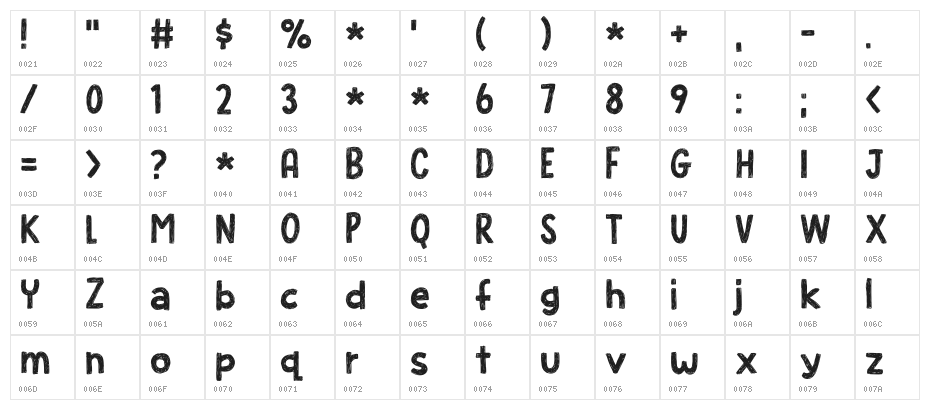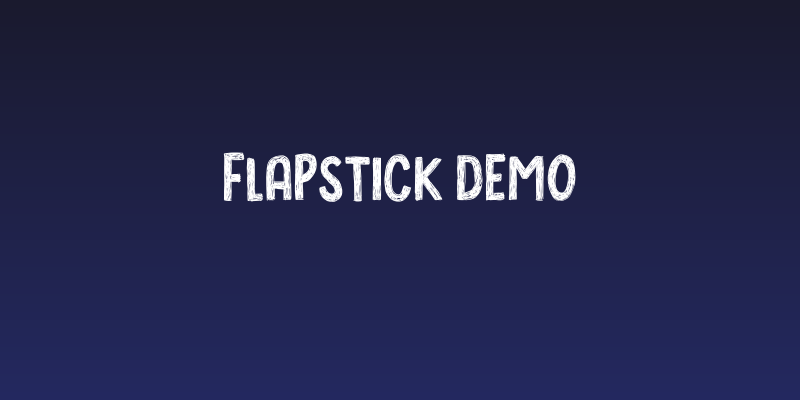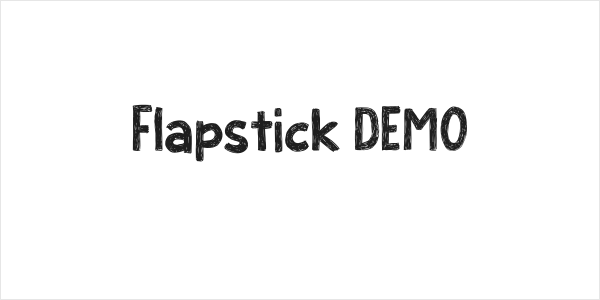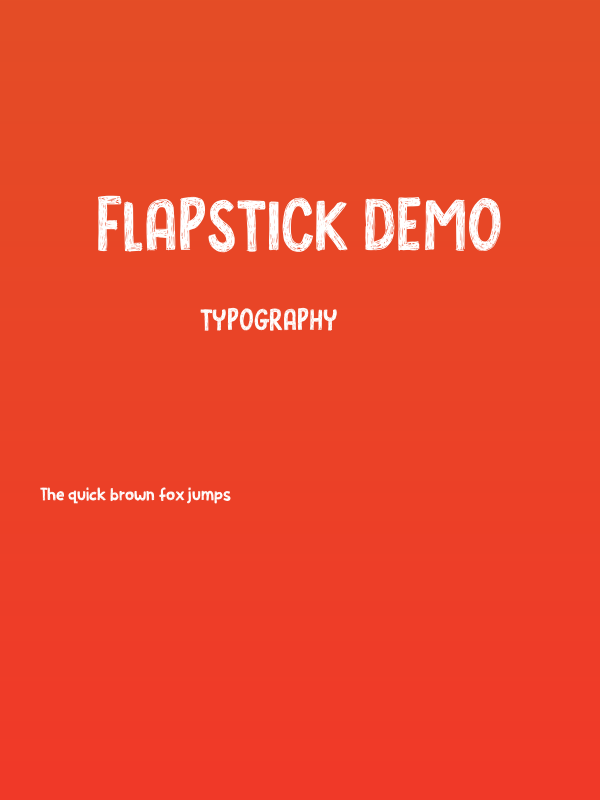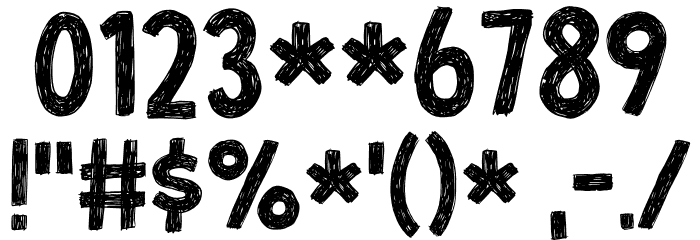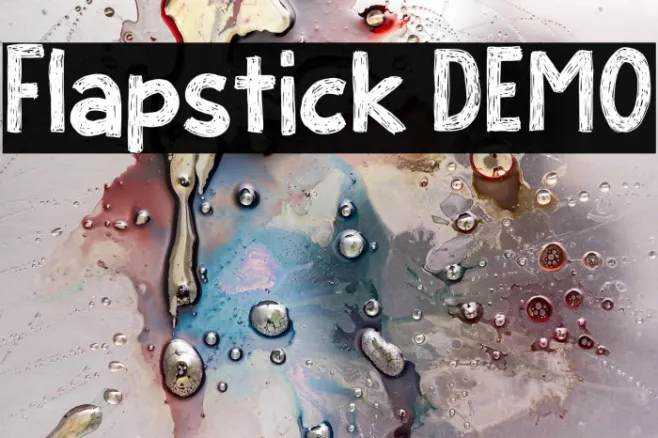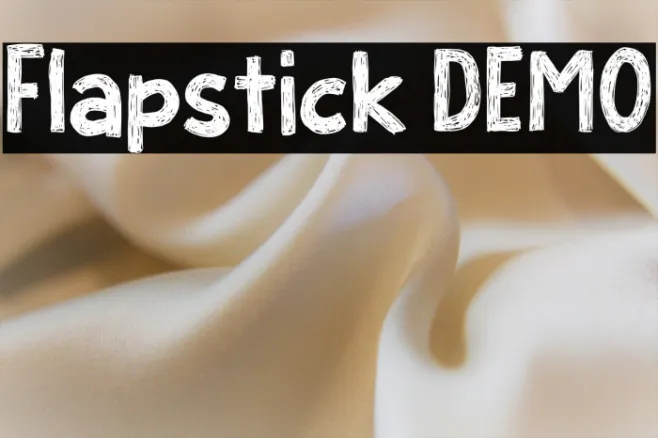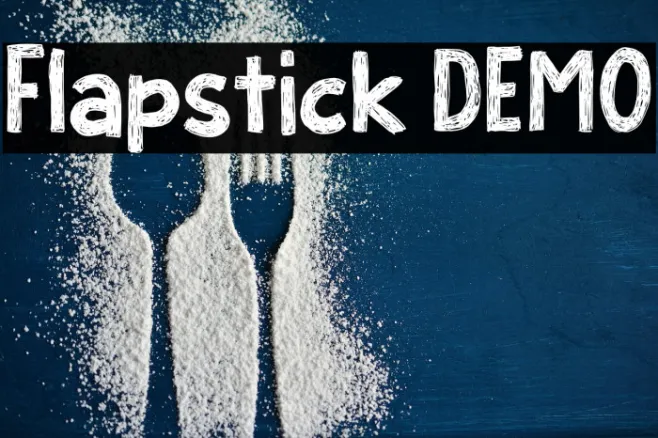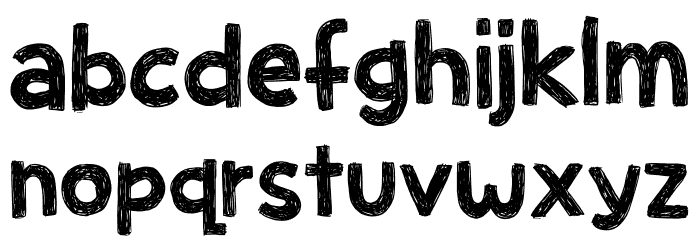
Flapstick DEMO Font
Flapstick DEMO Description
This font features a playful and hand-drawn style, characterized by its bold and sketch-like appearance. The letters are thick with uneven edges, giving it a casual and artistic feel. The strokes are consistent in width, creating a uniform look despite the informal design. The uppercase and lowercase letters maintain a cohesive style, while the numbers and special characters complement the overall aesthetic. This font exudes a sense of fun and creativity, making it ideal for projects that require a touch of whimsy and personality.
| Overall Style | Playful, Artistic |
| Use Case | Headlines, Posters, Creative Projects |
| Proposed Projects | Ideal for children's books, comic strips, playful branding, and creative posters. |